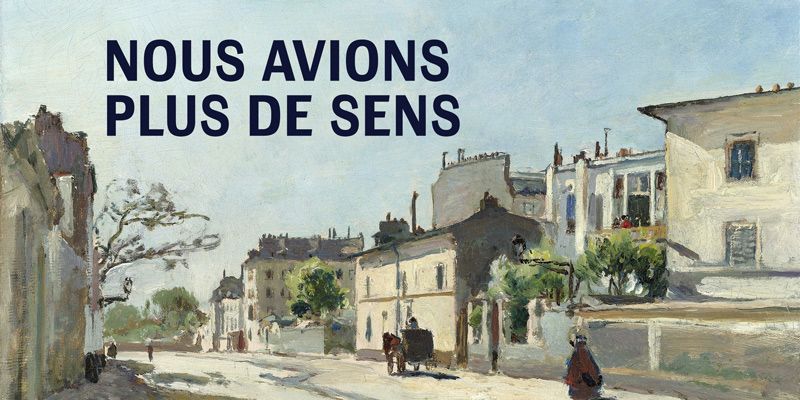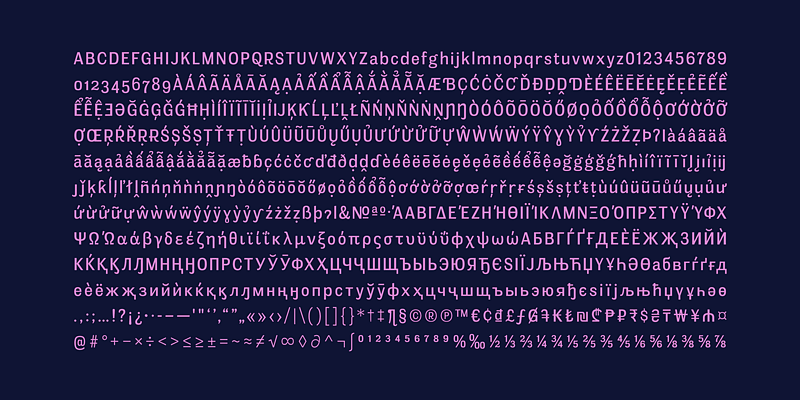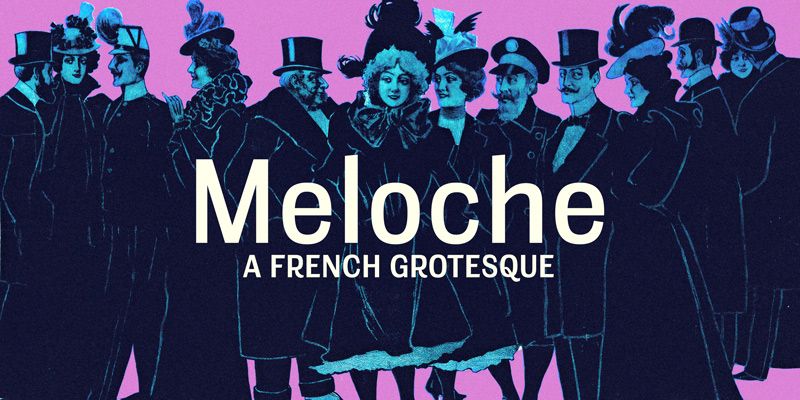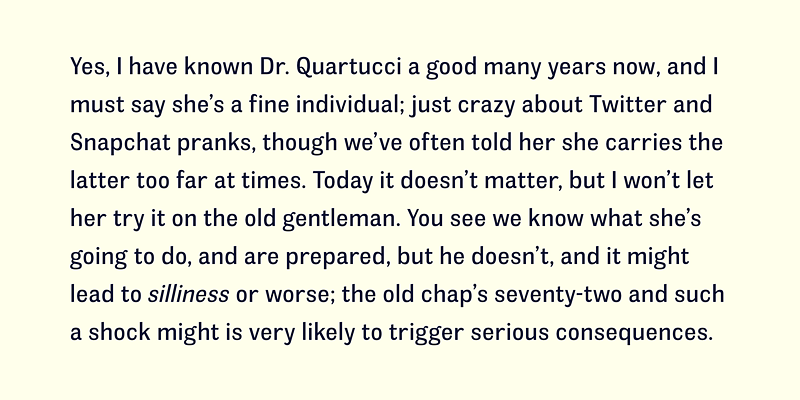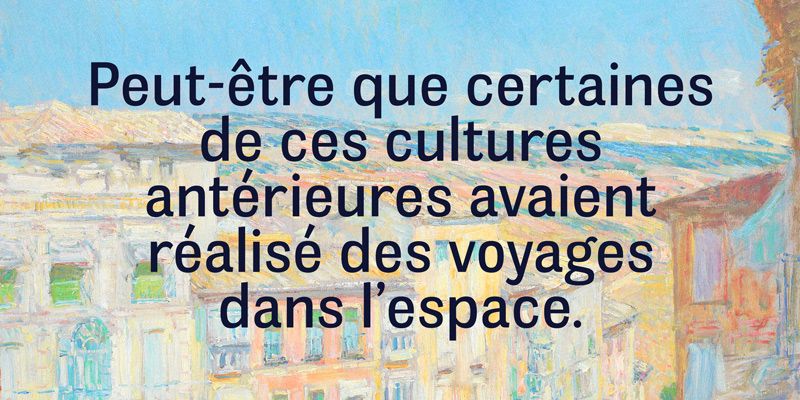
Meloche brings the irregular charm of hand-painted nineteenth-century French signs into a contemporary grotesque. Its shapes have enough character for a storefront name or architectural heading, yet the sans-serif foundation keeps them usable in a modern identity. Regular, Semibold, and Bold provide measured shifts in emphasis for menus, labels, wayfinding, and display lines. Twenty fleur-de-lis symbols offer a decorative accent when the setting calls for one. Meloche is particularly at home around restored interiors, neighborhood businesses, and cultural spaces where a completely neutral sans would leave the surroundings doing all the storytelling.